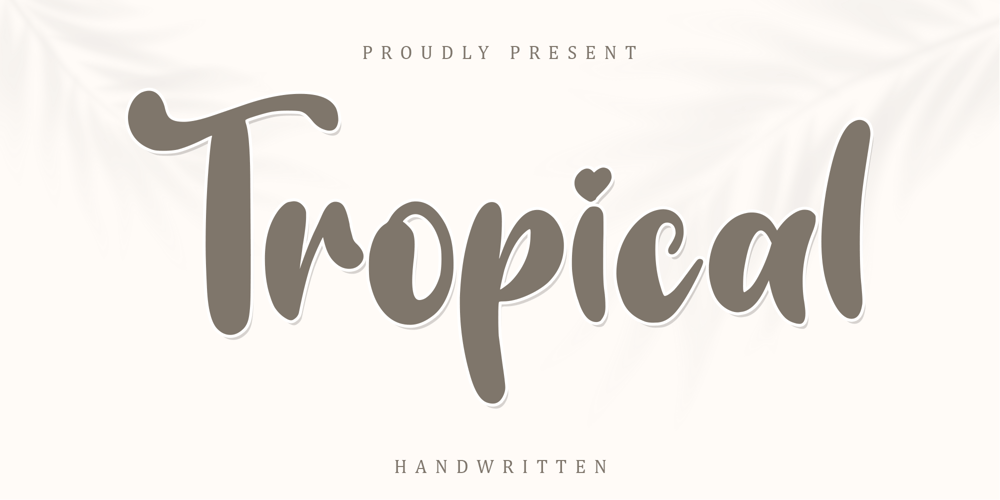
Tropical Display
Tropical Display font
Tropical Display Font Family was designed by Alif Ryan Zulfikar and published by Sakha Design. Tropical Display contains 2 styles and family package options. Tropical Display is a sweet handwritten font that is used in display contexts. This gentle font will look gorgeous on a variety of design ideas. It will add a joyful and romantic touch to each of your projects! Perfectly fit for branding, logo, wedding things, greeting cards, fashion, lookbook, marketing promotion, anytime you want to look fancy elegant but still casual.